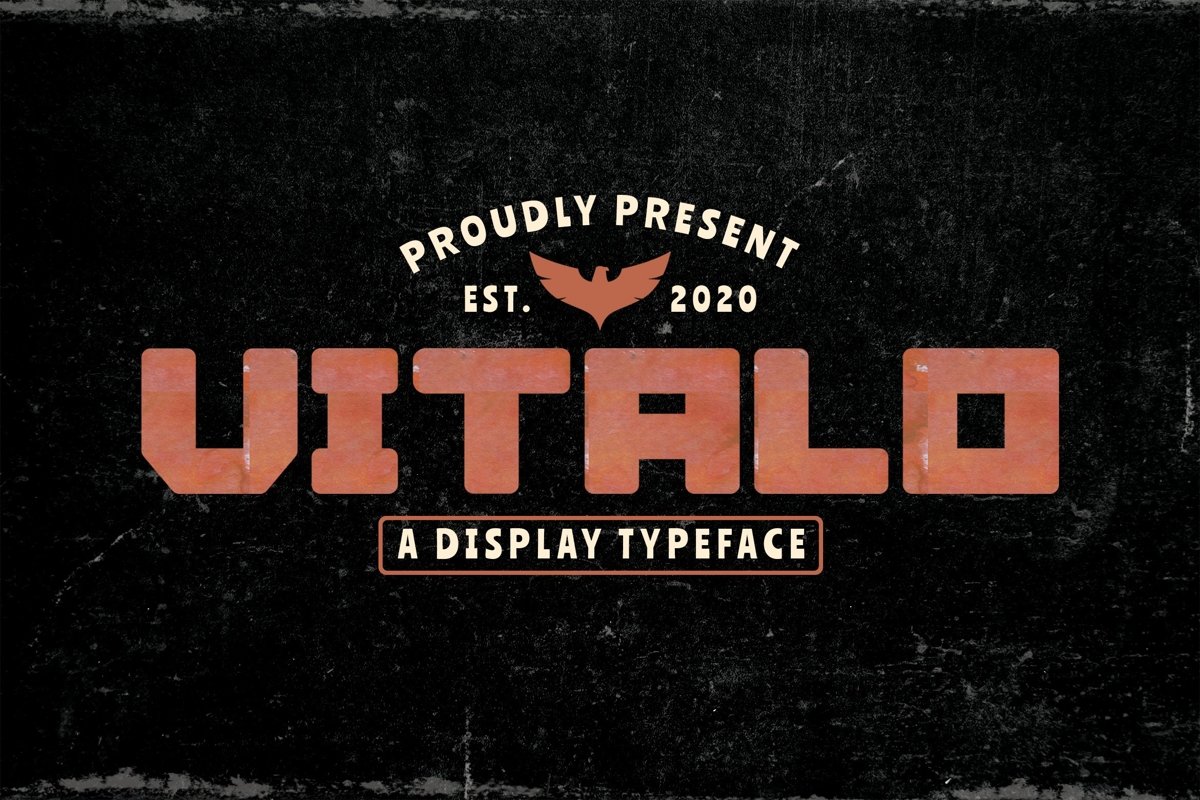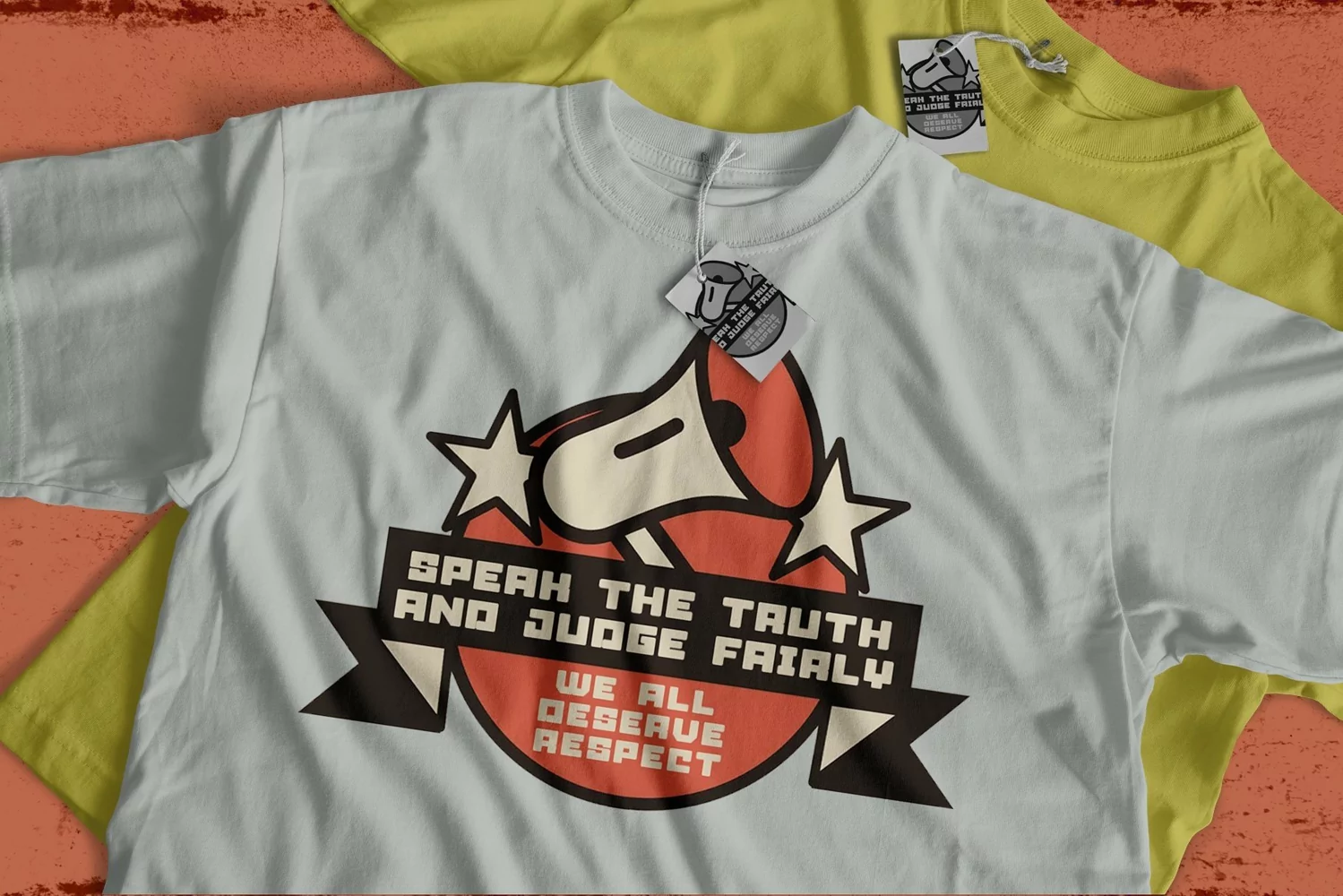
Vitalo is a wide display typeface. Perfect for display, quotes, packaging, logo, logotype, business card, emblem, header, tittle, print, t-shirt, and many more.